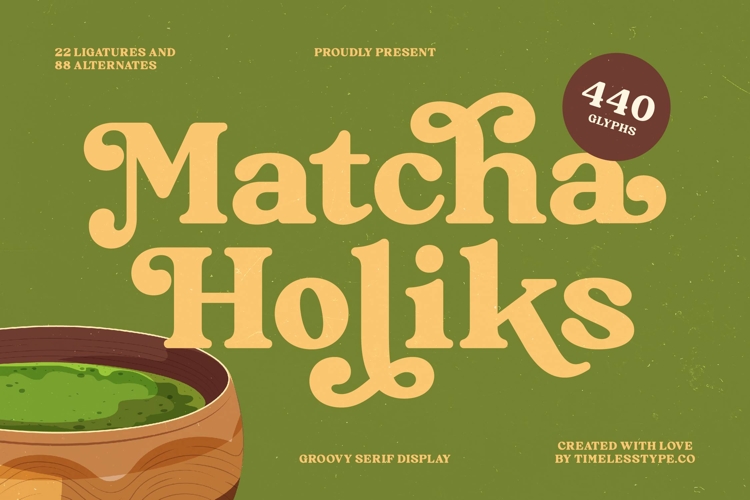
Matcha Holiks - Groovy Serif Display
Matcha Holiks - Groovy Serif Display, the ultimate font for authentic vintage flair. This bold, high-contrast display typeface masterfully blends 70s nostalgia with modern typographic precision. Its distinctive, rounded serifs and organically flowing letterforms create a wonderfully expressive visual statement, demanding attention at larger sizes. It is the perfect solution for designers seeking an aesthetic that is both playful and profoundly impactful in display settings.